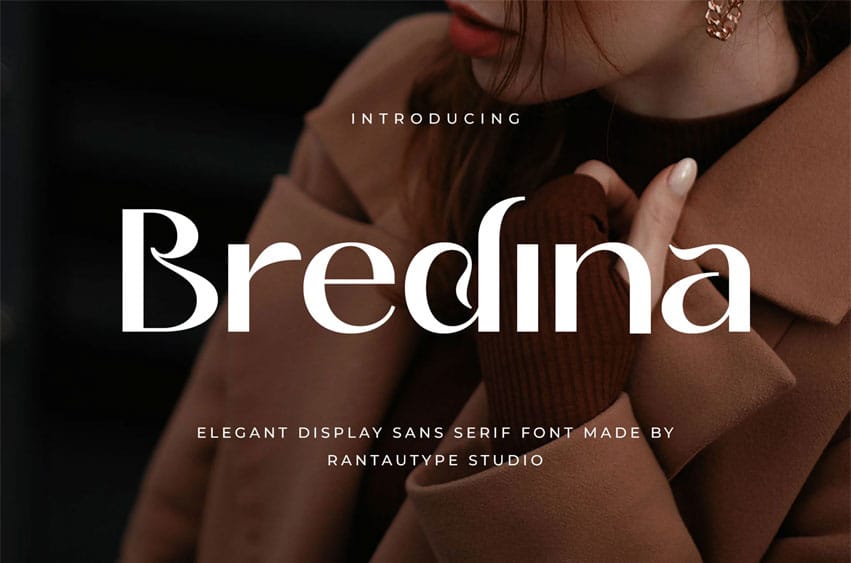
Bredina Font is a new font made by Rantautype Studio that embraces grace and femininity. Bredina is a perfect choice for any creative endeavor, chic lifestyle design such as logotype, advertisements, watermark on photography, stationery, branding project, display and magazine, invitation, corporate brand, product design, label, business project, and many other projects with an elegant touch.